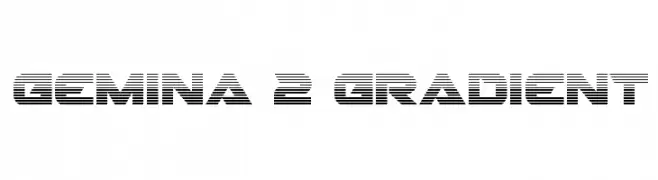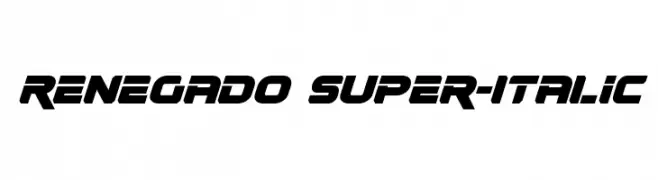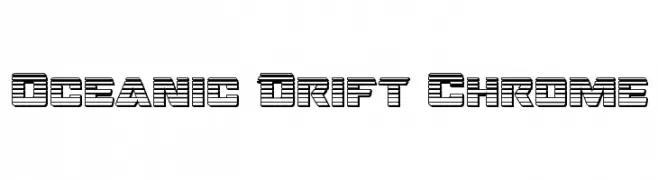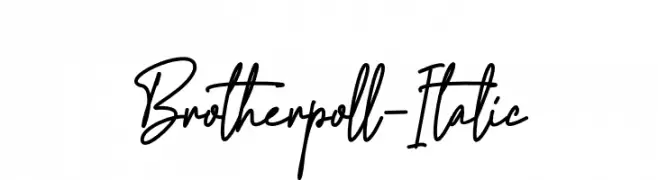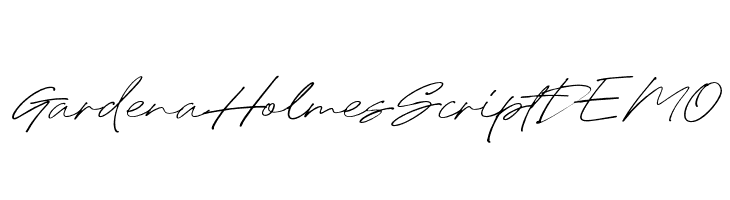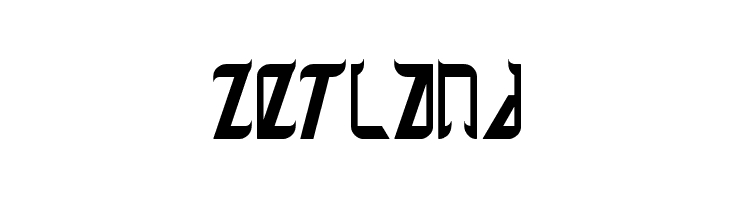
A futuristic, gradient-style font with bold, angular characters.
A semi-bold serif font with a classic yet modern appeal.
A modern, angular font with geometric shapes and sharp lines.
An ornate, curly decorative font with swirling embellishments.
A bold, italicized font with a modern, dynamic style.
A bold, handwritten font with a playful and energetic style.
A bold, futuristic font with a three-dimensional, chrome-like appearance.
A bold, stencil-like font with characters enclosed in rounded rectangles, offering a modern and industrial feel.
A playful, wavy font with bold, irregular outlines and a hand-drawn feel.
Handwritten cursive script font.